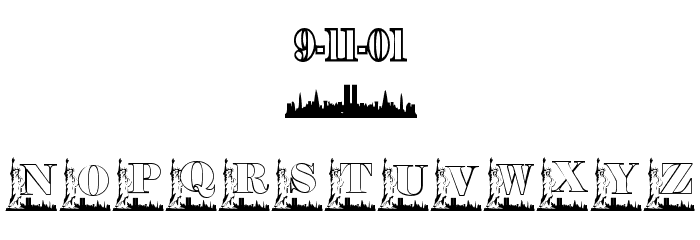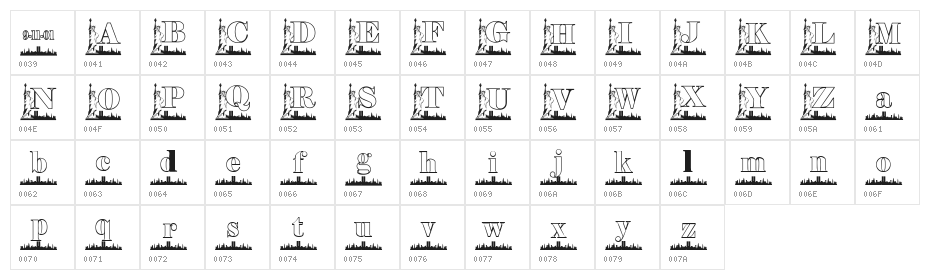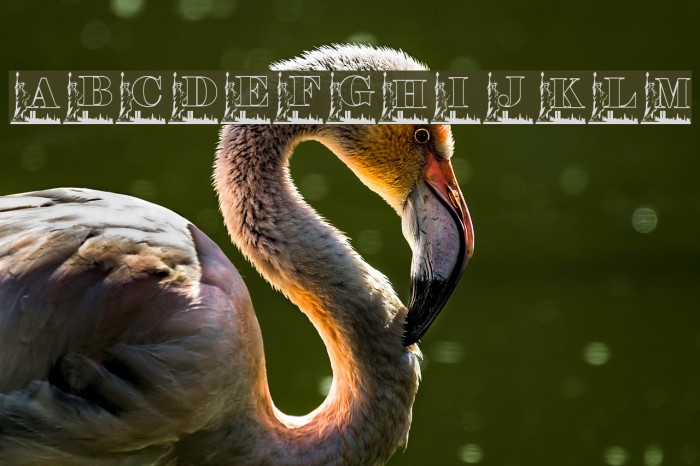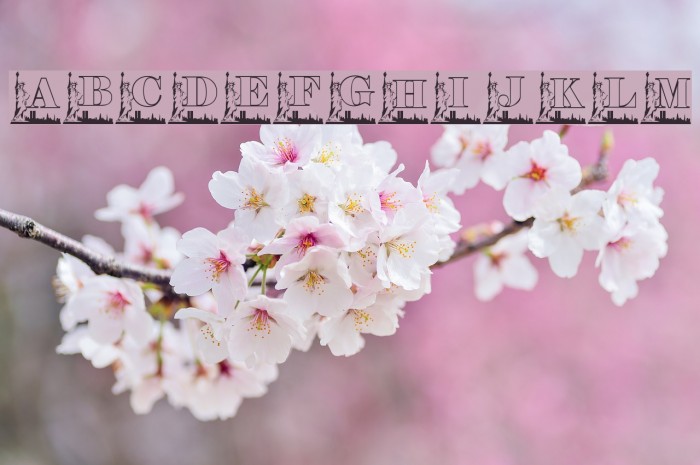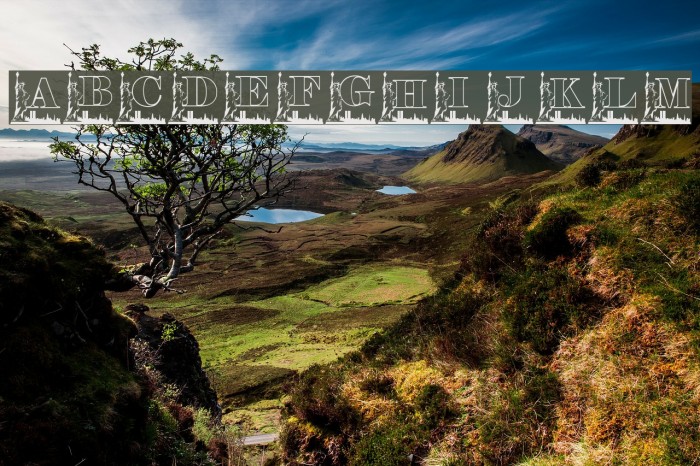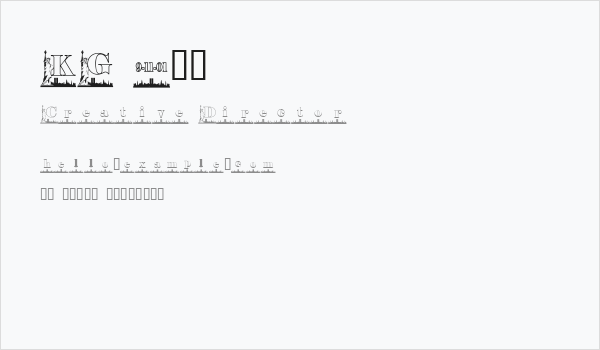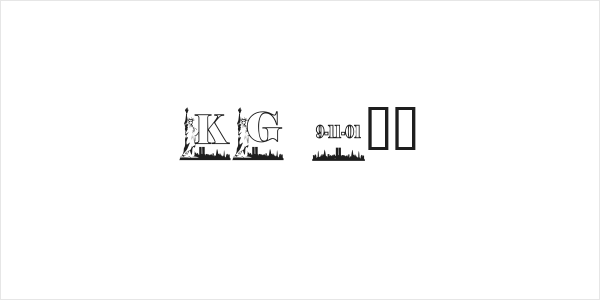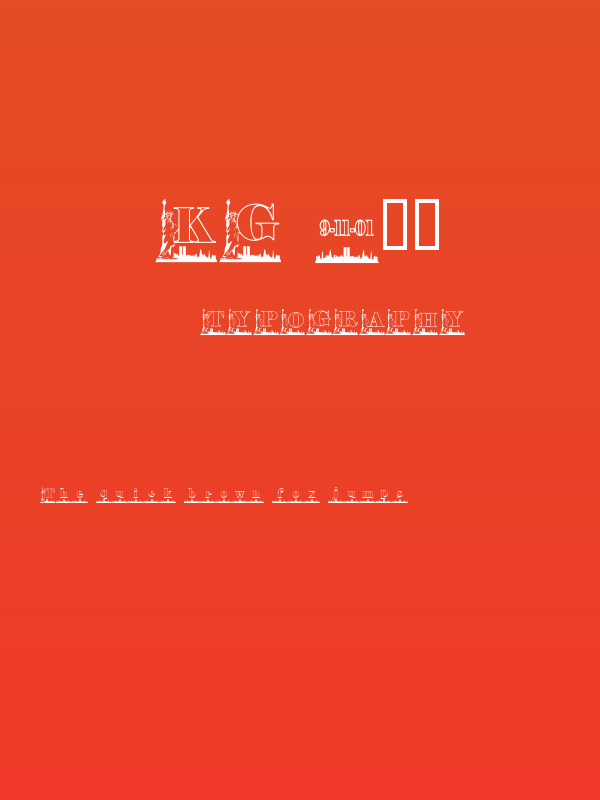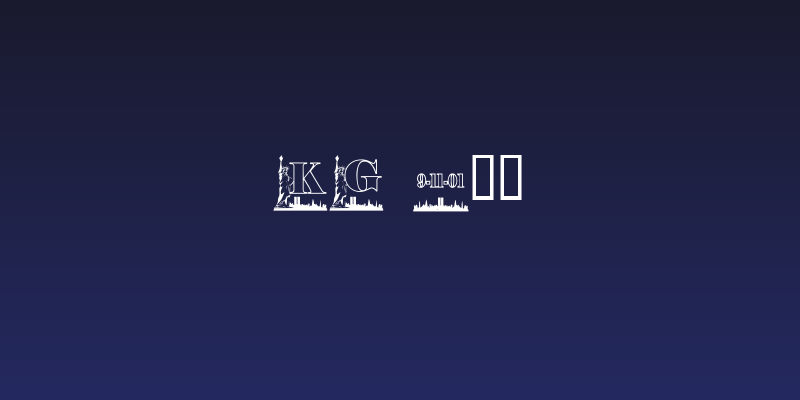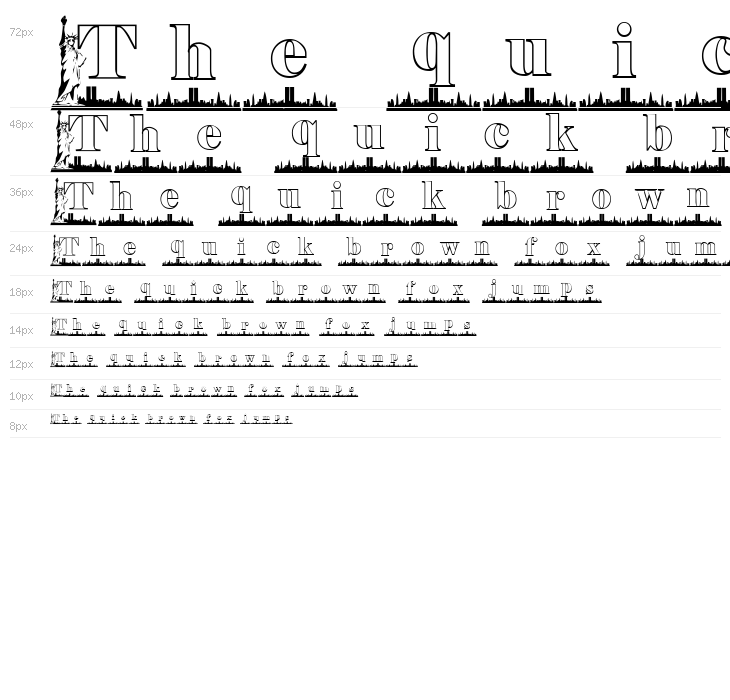
KG 911 Font
KG 911 Description
This font features a unique and striking design that incorporates the silhouette of the Statue of Liberty into each uppercase letter, creating a powerful visual impact. The lowercase letters and numbers maintain a clean and classic serif style, providing a balanced contrast to the decorative uppercase. The font's design is a tribute, with the skyline motif adding depth and context. It is both a statement piece and a functional typeface, suitable for projects that require a blend of elegance and thematic resonance.
| Use Case | Headlines, Posters, Themed Events |
| Proposed Projects | Ideal for commemorative posters, themed event invitations, and editorial design that requires a strong visual theme. |